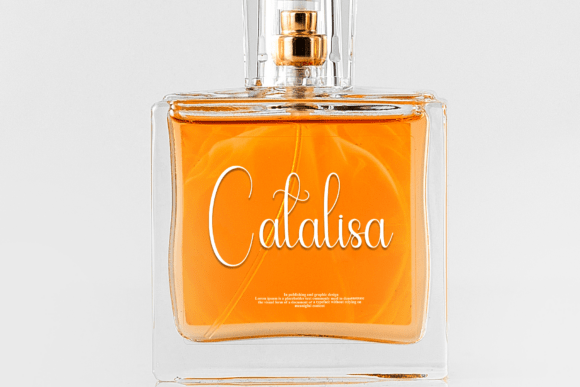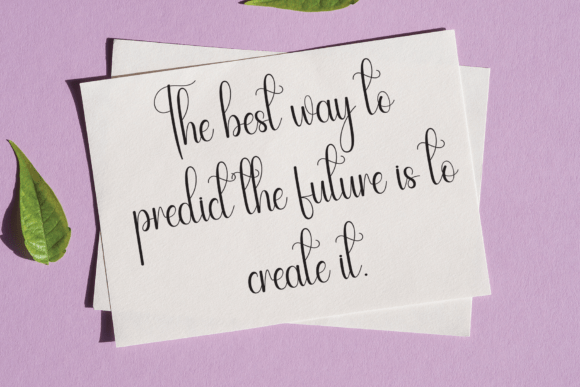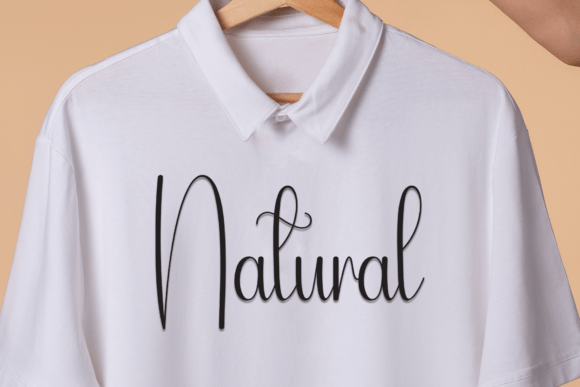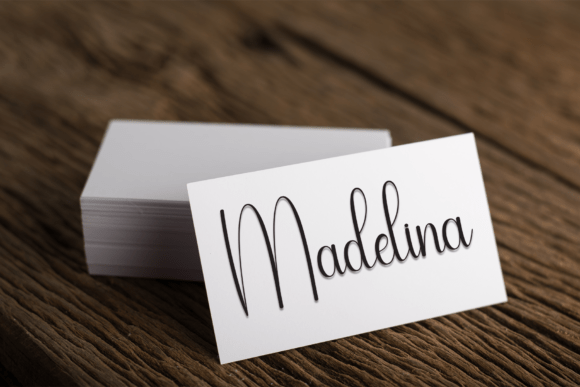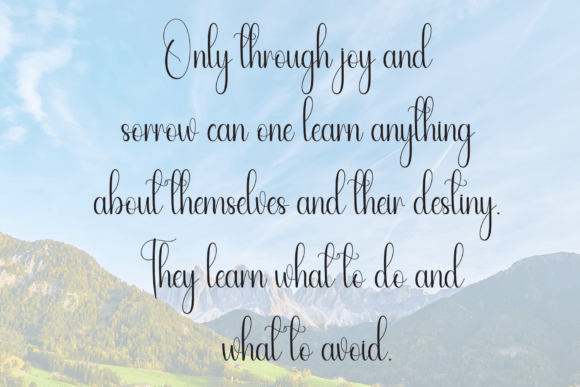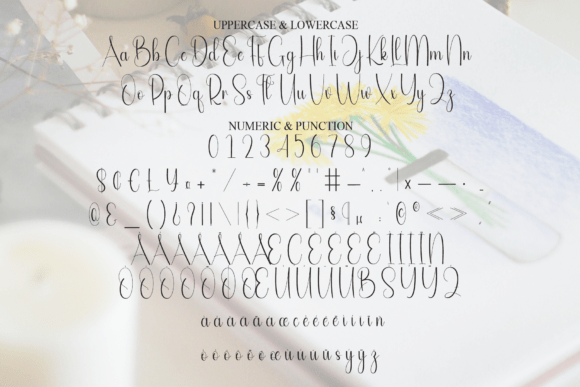
Introducing Coloring Font: Elevate Your Designs with Elegance and Modern Flair
In the world of typography, few fonts manage to strike a balance between elegance and modernity. Coloring Font is one such exceptional typeface that brings a stylish handwritten script to the forefront, perfect for designers and crafters looking to add a touch of sophistication to their projects. With its flowing strokes and organic curves, Coloring Font is an ideal choice for those seeking to infuse warmth and refinement into their designs.
What Makes Coloring Font Stand Out?
Coloring Font is not just another script font; it’s a carefully crafted typeface designed to bring a sense of luxury and modern flair to any project. Here are some key features that make Coloring Font a standout choice:
- Elegant and Refined: The font’s elegant strokes and refined curves make it perfect for high-end branding, sophisticated invitations, and social media posts that demand a touch of class.
- Modern Flair: Despite its classic feel, Coloring Font has a distinctly modern edge that sets it apart from more traditional script fonts. This makes it versatile enough to be used in a wide range of design contexts.
- Warmth and Sophistication: The organic nature of Coloring Font’s strokes brings a warmth to designs that can often be lacking in digital typefaces. This warmth, combined with its sophisticated look, makes it an excellent choice for designers looking to create a personal connection with their audience.
- Versatility: Whether you’re working on a branding project, crafting bespoke invitations, or curating content for social media, Coloring Font adapts seamlessly. Its versatility is one of its most compelling features, allowing designers to use it across various platforms and applications.
Applications of Coloring Font
The applications of Coloring Font are vast and varied. Here are some of the most popular uses:
- Branding: For businesses looking to establish a sophisticated and elegant brand identity, Coloring Font can be used in logos, business cards, and marketing materials to create a cohesive and refined look.
- Invitations: Whether it’s a wedding invitation, a baby shower, or a formal gala, Coloring Font adds a touch of elegance and personalization that sets the tone for the event.
- Social Media: In a digital landscape where standing out is key, Coloring Font can elevate social media posts, stories, and bios, helping brands and individuals create a distinctive and memorable online presence.
Tips for Using Coloring Font Effectively
To get the most out of Coloring Font, consider the following tips:
- Pair with Complementary Fonts: For maximum impact, pair Coloring Font with sans-serif fonts to create contrast and visual interest.
- Experiment with Colors: While the font itself is the star, experimenting with different colors can help match your design’s mood and theme.
- Pay Attention to Spacing: The elegance of Coloring Font can be accentuated by generous spacing. Ensure that your text is not too cramped, allowing each letter to breathe.
Coloring Font is more than just a typeface; it’s a design tool that can elevate your projects with its elegant and modern appeal. Whether you’re a designer looking to offer something unique to your clients or a crafter seeking to add a personal touch to your creations, Coloring Font is an excellent choice. Its versatility, combined with its sophisticated and warm aesthetic, makes it a valuable addition to any designer’s toolkit.